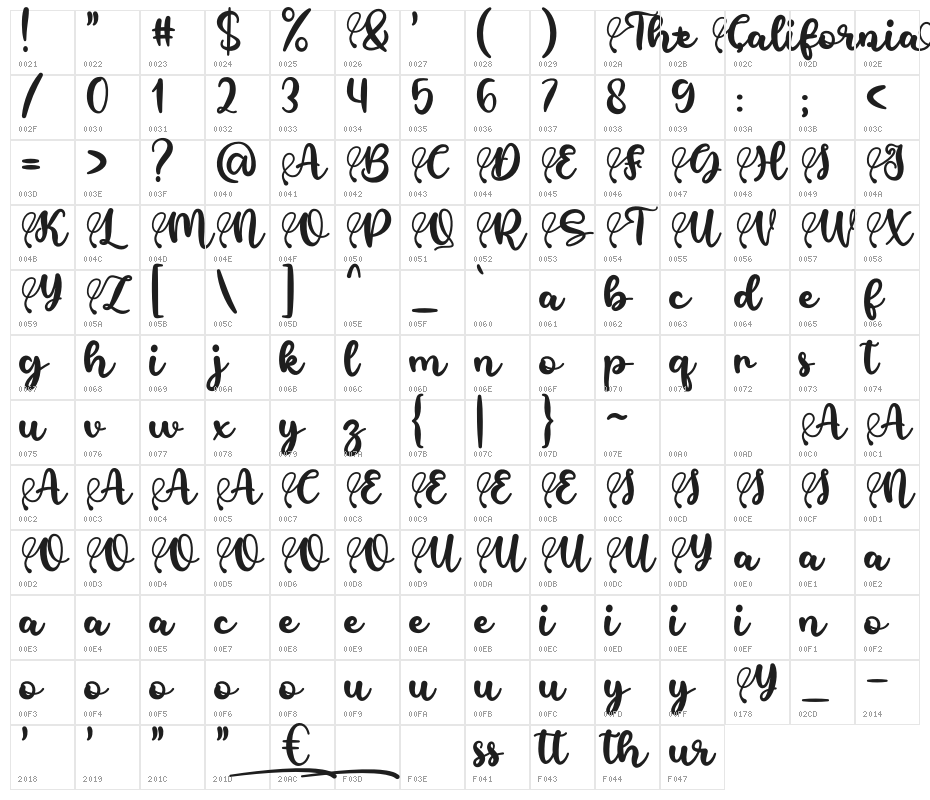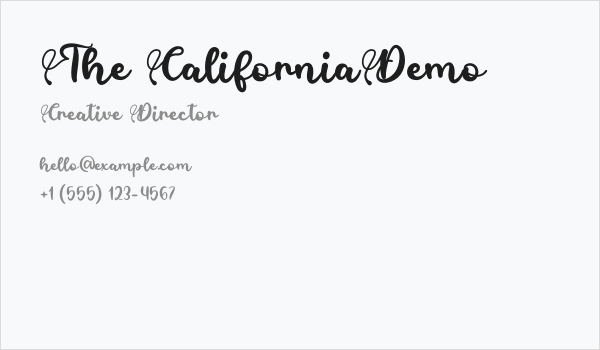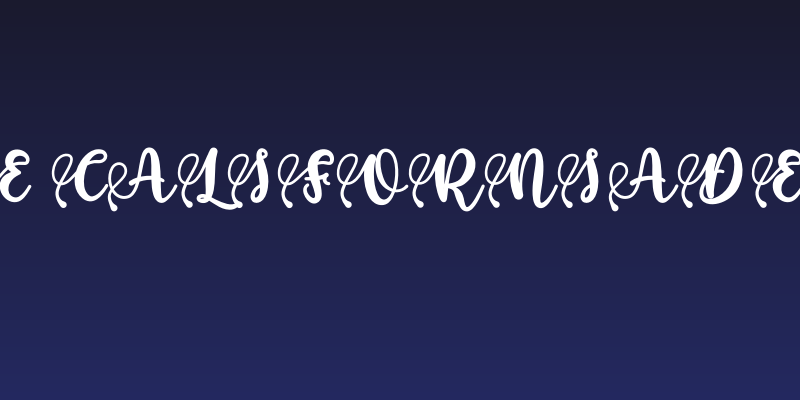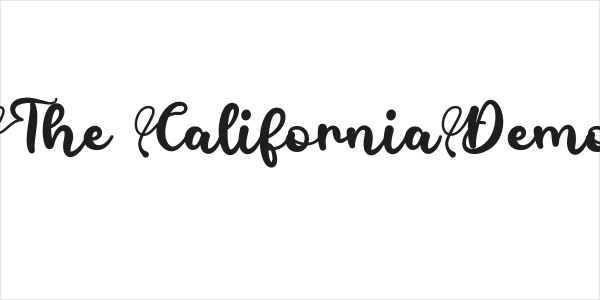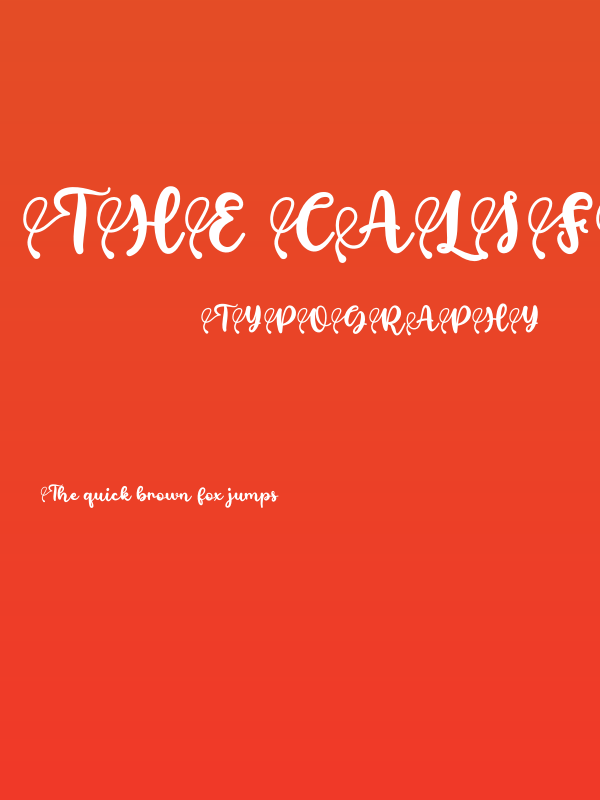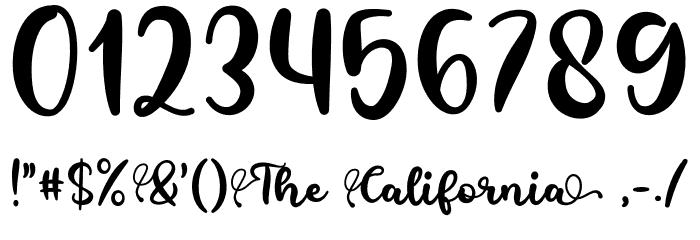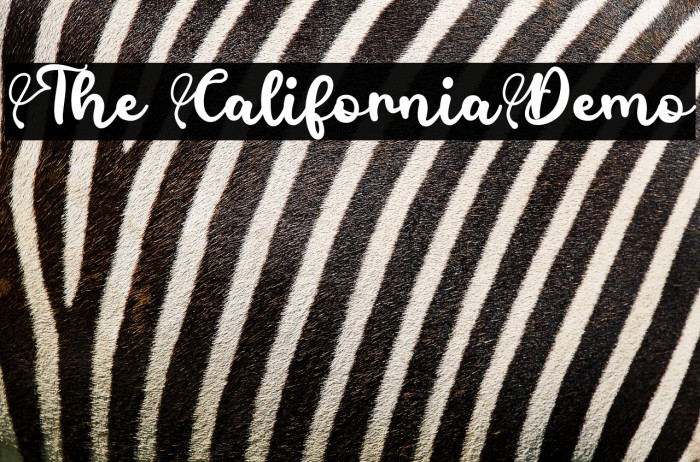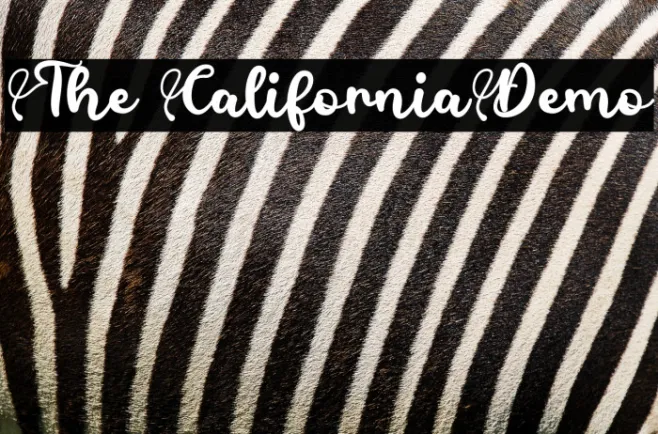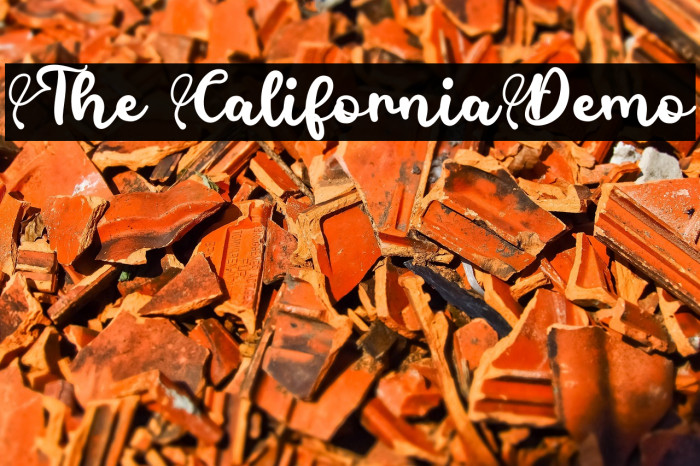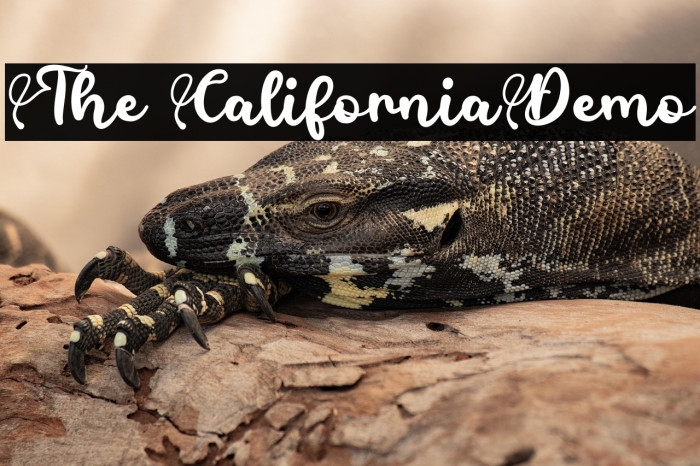
The CaliforniaDemo Font
The CaliforniaDemo Description
This font features a playful and elegant script style with smooth, flowing curves and a handwritten appearance. The uppercase letters are intricately designed with loops and swirls, giving them a decorative flair. The lowercase letters maintain a consistent flow, enhancing readability while retaining a stylish look. The numerals are bold and rounded, complementing the overall aesthetic. Special characters are thoughtfully integrated, maintaining the font's cohesive design. This font exudes a sense of creativity and sophistication, making it suitable for various artistic and formal applications.